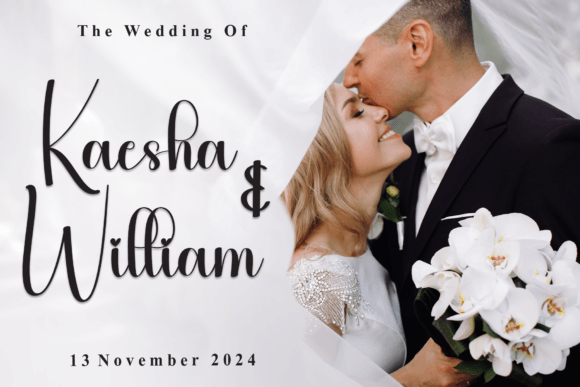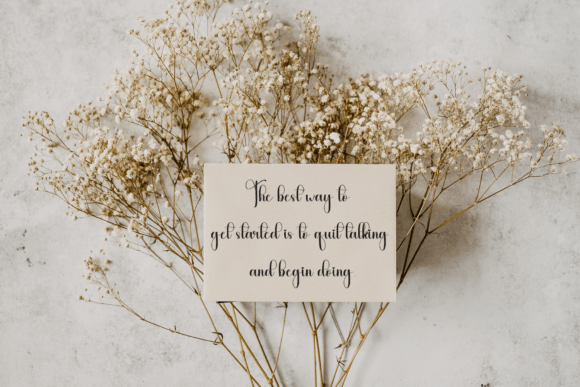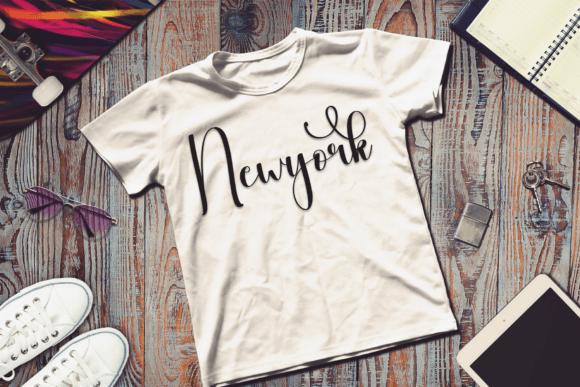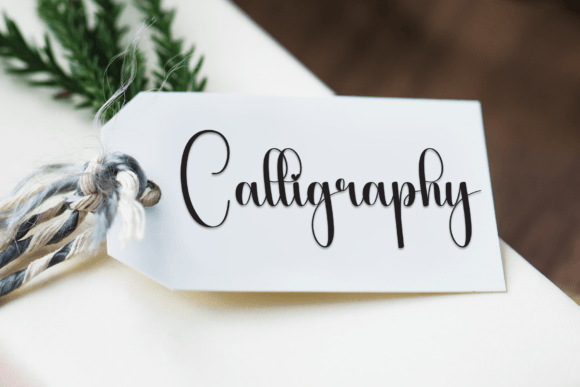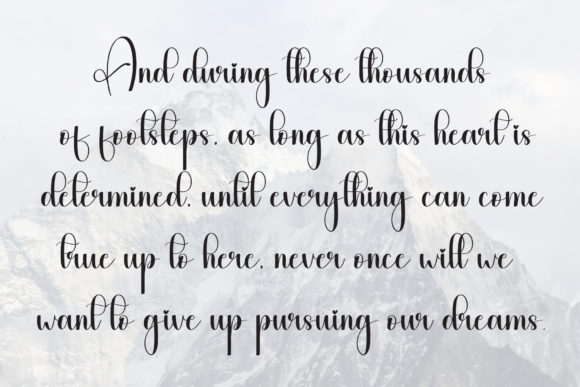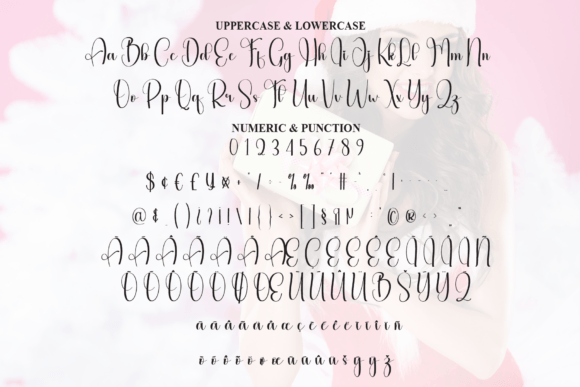
The Magic of the Barbie Santa Font: Elevate Your Designs with Elegance and Charm
Have you ever been working on a design project, pouring your heart and soul into every detail, and then – BAM! – you stumble upon the perfect font to bring it all together? That’s exactly what happened to me when I discovered the enchanting Barbie Santa Font. Its whimsical curves and flowing lines immediately caught my attention, and I knew I had to learn more about this stylish handwritten script font.
Perfect for adding a touch of sophistication to invitations, logos, and branding, the Barbie Santa Font is a game-changer for designers. Its delicate strokes bring warmth and creativity to any project, making it a valuable addition to any design toolbox. Whether you’re a seasoned pro or just starting out, this font is sure to inspire your creativity and help you take your designs to the next level.
Barbie Santa Font Key Features
- Unique Characteristics: The font features a distinctive, cursive script with a festive and playful tone, perfect for holiday-themed designs and projects.
- Font Style: The Barbie Santa Font is a script font, ideal for creating whimsical and eye-catching text effects in digital and print media.
Barbie Santa Font Review
At first glance, the Barbie Santa Font caught my attention with its playful, festive vibe. ✨ The bold and cheerful design is perfect for adding a touch of whimsy to holiday projects, such as greeting cards, gift tags, and social media graphics. The font’s rounded edges and bright colors make it feel like a modern take on classic holiday fonts.
However, upon closer inspection, I noticed a few limitations. ⚠️ The font’s design can feel a bit inconsistent in certain areas, with some letters and symbols looking a bit rough or pixelated. Additionally, the font’s scalability can be a concern, as some letters may not display well at smaller sizes. This can be a problem for designers who need to use the font in various contexts.
Here are a few things to consider when working with the Barbie Santa Font:
- Use it sparingly to avoid overwhelming your design.
- Pair it with simpler fonts to balance out the look.
- Test the font at various sizes to ensure it displays well.
Overall, I think the Barbie Santa Font is a fun and festive option for holiday projects, but it may not be the best choice for more serious or professional designs. With some careful consideration and use, it can add a nice touch of personality to your work.
The Barbie Santa Font is ideal for creating festive and playful designs, such as:
- Holiday cards and invitations
- Christmas party decorations and signage
- Social media posts and ads for holiday promotions
- Children’s birthday party invitations and decorations